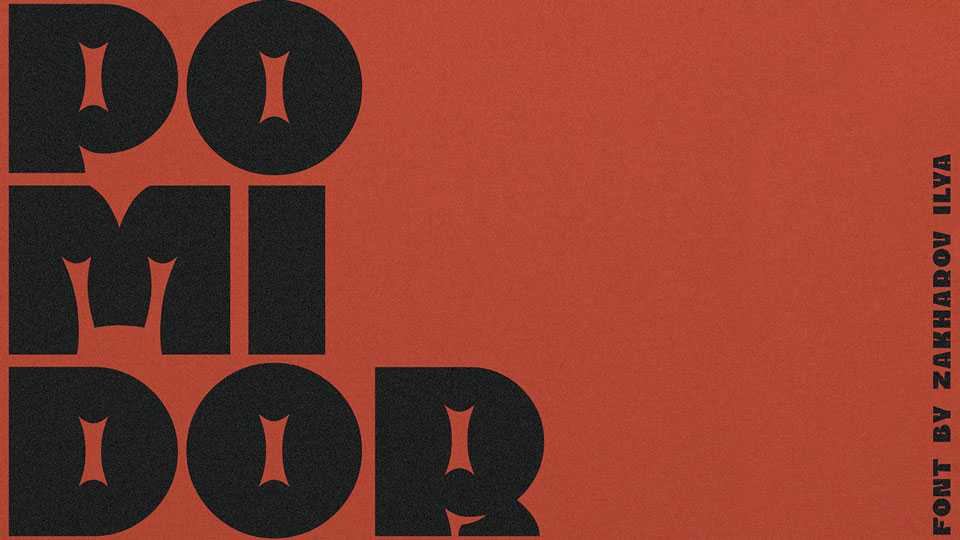
Download Pomidorfont, a fun fat big display typeface with Latin and Cyrillic languages. Pomidor font looks ideal for posters, headlines, branding, logotypes, prints and other creative artworks.
Designer: Ilya Zakharov